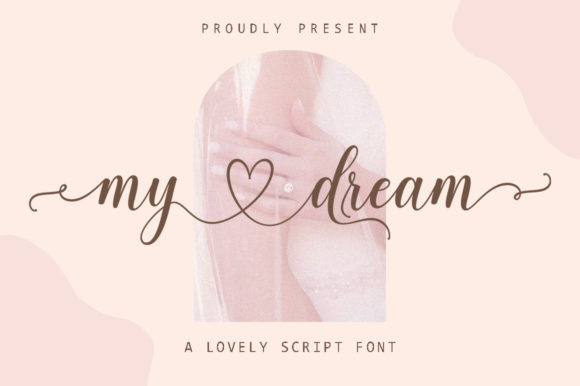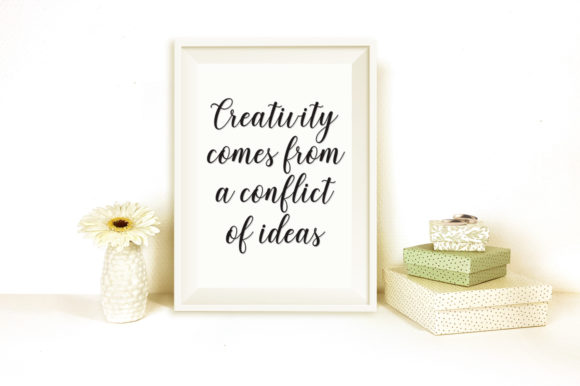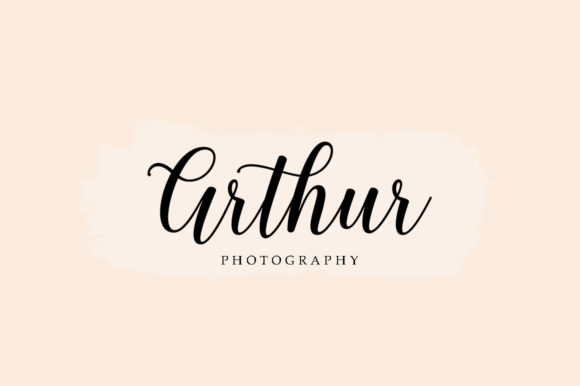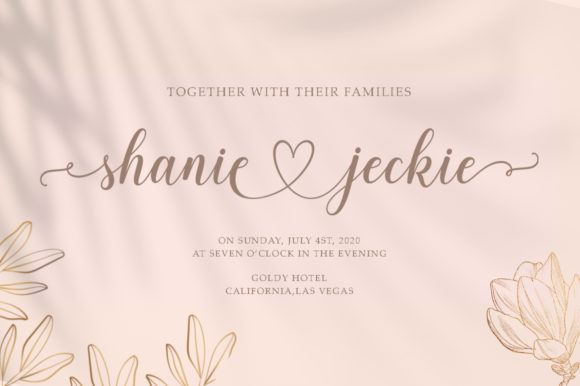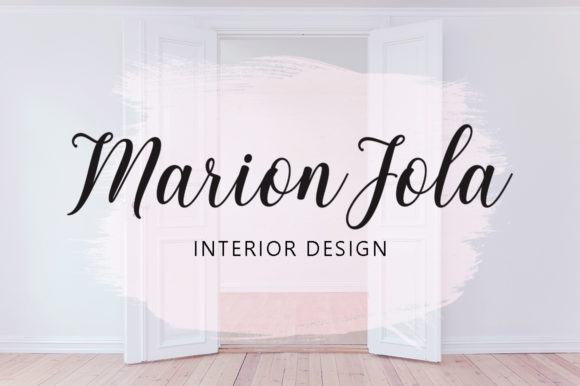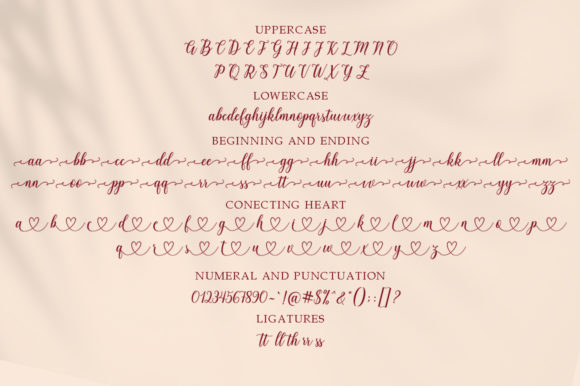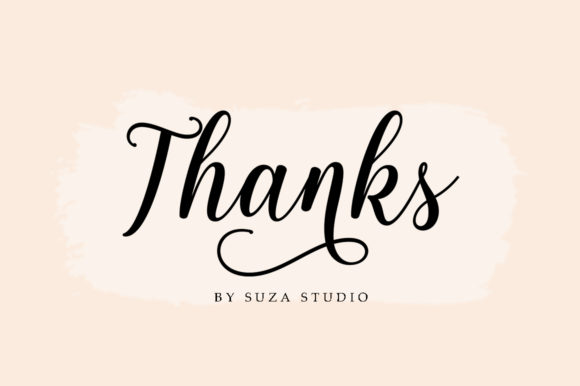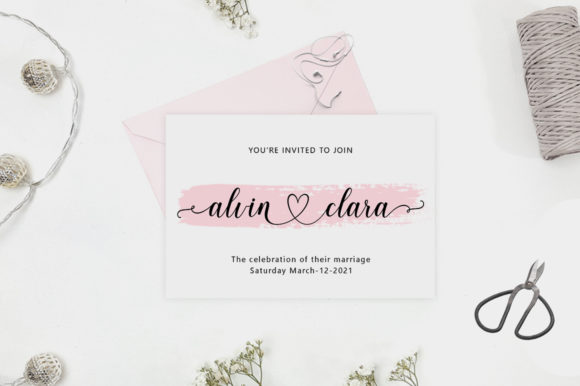
My Dream Font
About My Dream Font
My Dream is a beautiful light handwritten font with a unique feel and a stunning impact. It will add a luxury spark to any design project that you wish to create! This font is PUA encoded which means you can access all of the amazing glyphs and ligatures with ease!